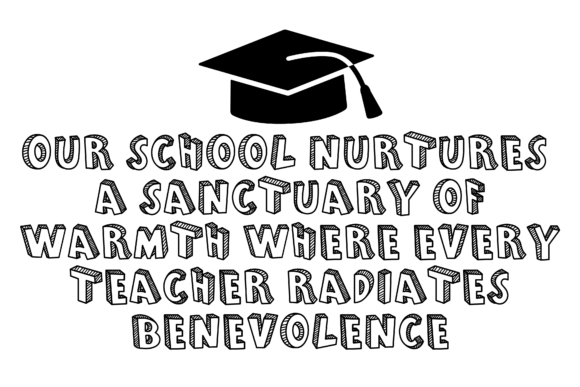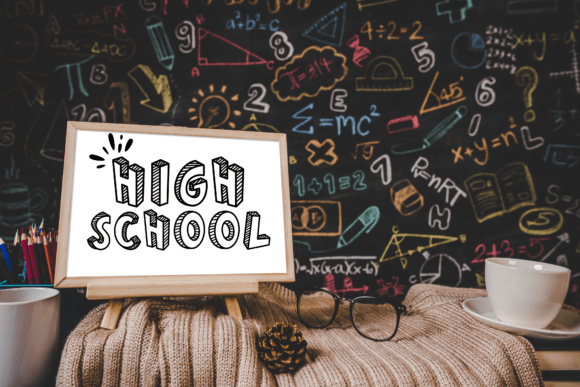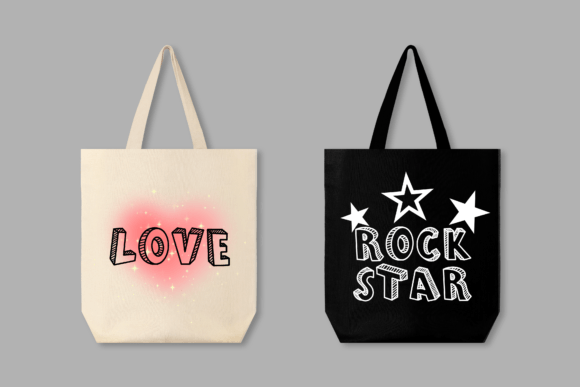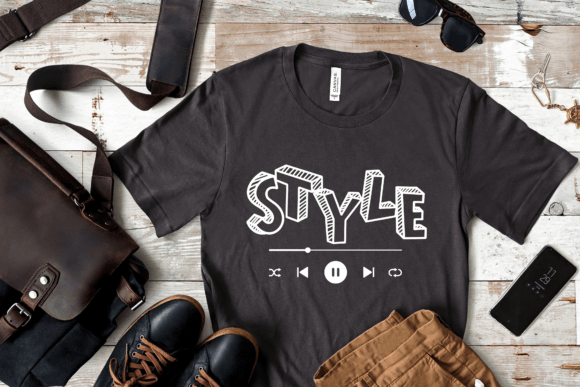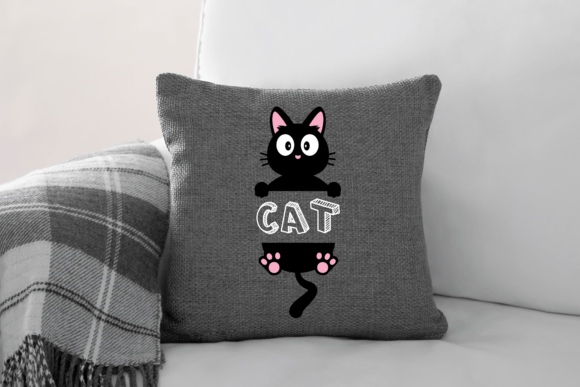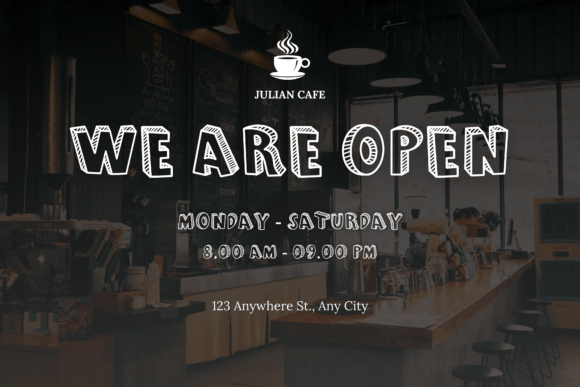
Revisiting Adolescent Charm with the High School Handwritten Font
Ah, the nostalgia of high school days – scribbled notes, daydreams in algebra class, and the thrill of expressing ourselves through handwritten journals. As designers, we’ve all been there – searching for that perfect font to capture the essence of our creative projects. I recall working on a personal project, determined to create a unique and playful aesthetic, but struggling to find the right typography. That’s when I stumbled upon the High School Handwritten Font, and it instantly transported me back to my adolescent years.
A Personal Review: What I Love and What to Watch Out For
• ✅ The High School Handwritten Font boasts a casual, organic look that’s perfect for adding a personal touch to various design projects.
• ✅ Its versatility shines in both digital and print formats, making it suitable for a wide range of applications.
• ✅ The font’s playful, scribbled feel evokes a sense of nostalgia and whimsy, ideal for capturing the imagination of your audience.
Small Quirks and Limitations 🤔
• ⚠️ As a handwritten font, it may not be the best choice for very formal or professional projects.
• ⚠️ Some characters may require manual kerning for optimal spacing.
The Designer’s Inspiration: A Backstory
The High School Handwritten Font was inspired by the nostalgic charm of adolescent years – the scribbled notes, the doodles, and the dreams. Our designer aimed to capture the essence of this carefree era, creating a font that’s both playful and relatable. The result is a typography that’s perfect for designers, crafters, and creative hobbyists looking to add a personal touch to their projects.
What is the High School Handwritten Font best suited for? The High School Handwritten Font is perfect for creating a personal touch in note-taking, journal entries, banner art, blog content, personalized mugs, greeting cards, T-shirts, and social media posts.
Is the High School Handwritten Font suitable for formal projects? No, due to its playful and handwritten nature, it’s best suited for informal or creative projects.